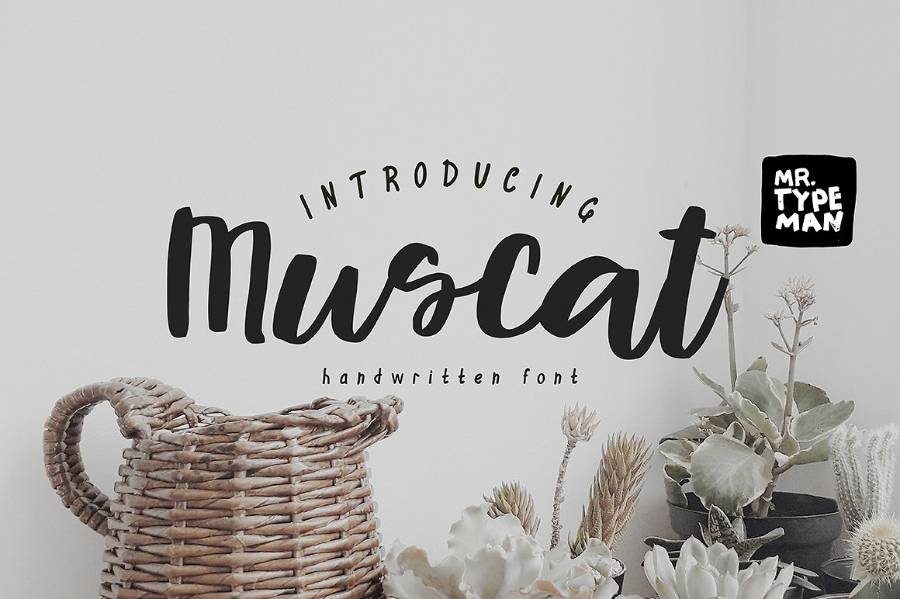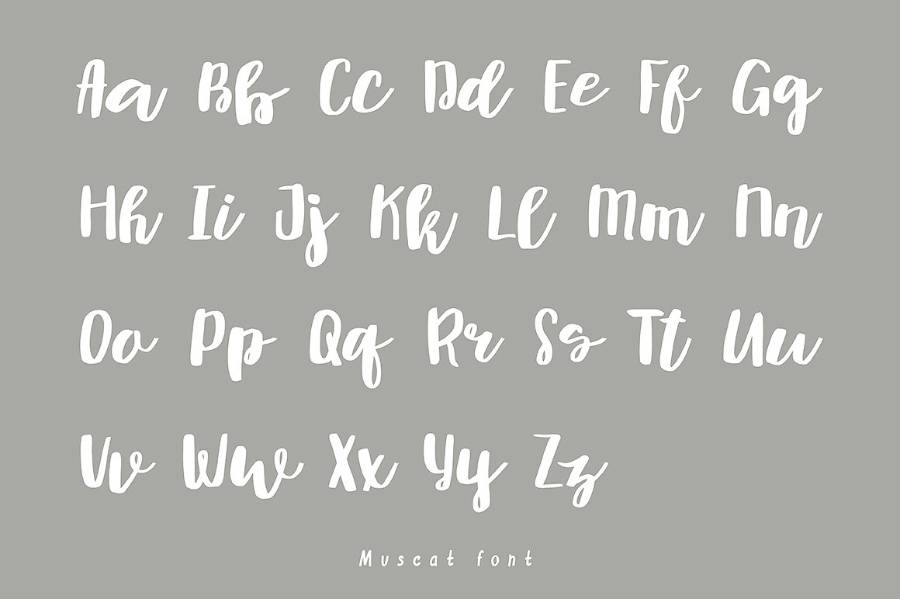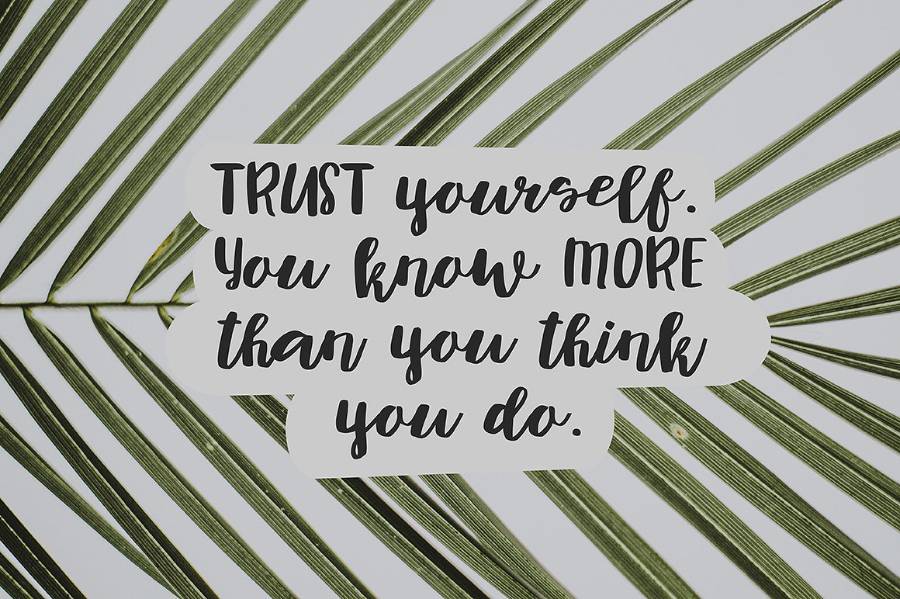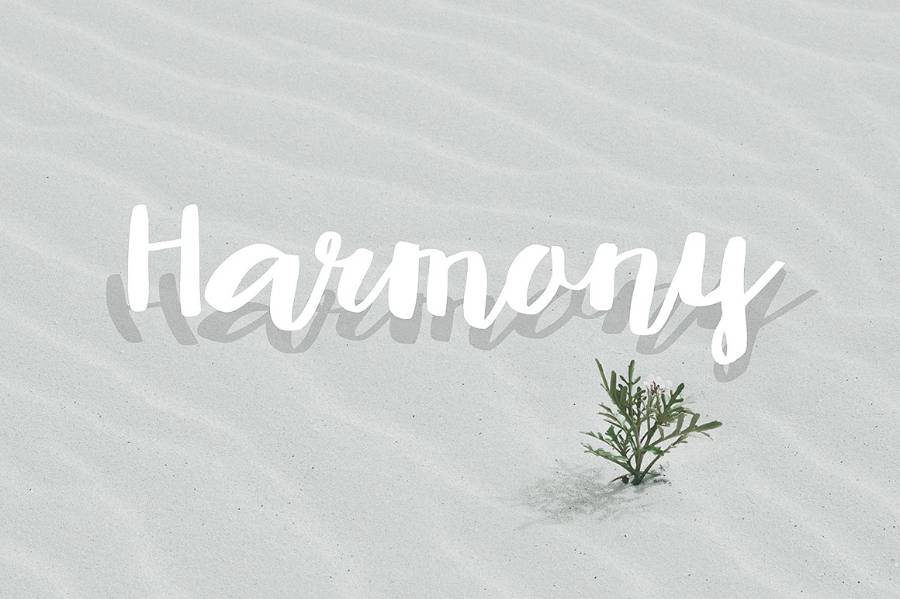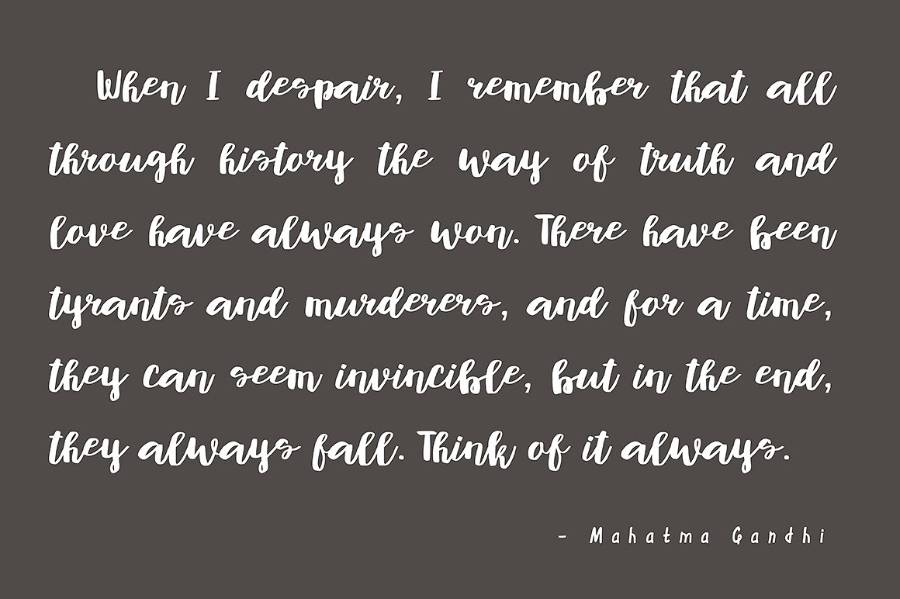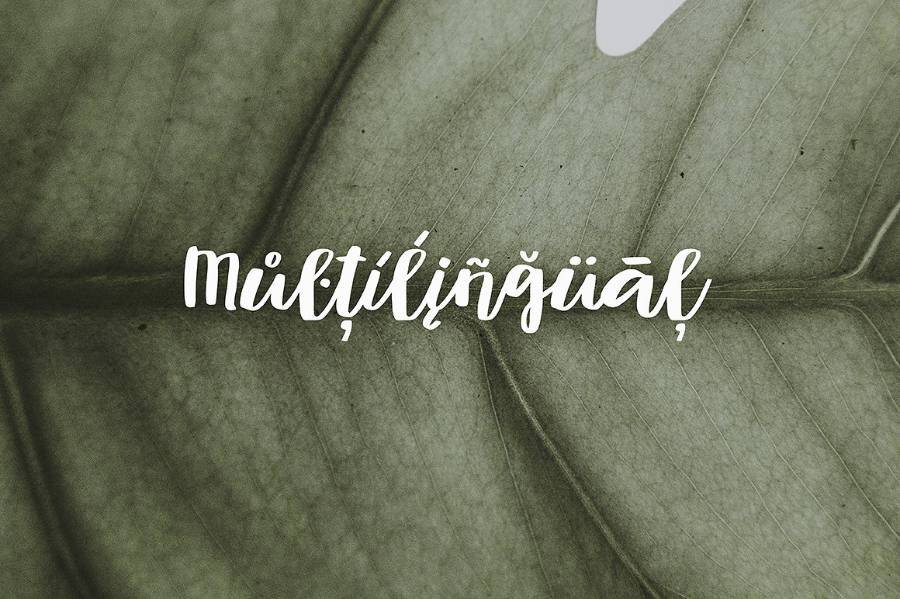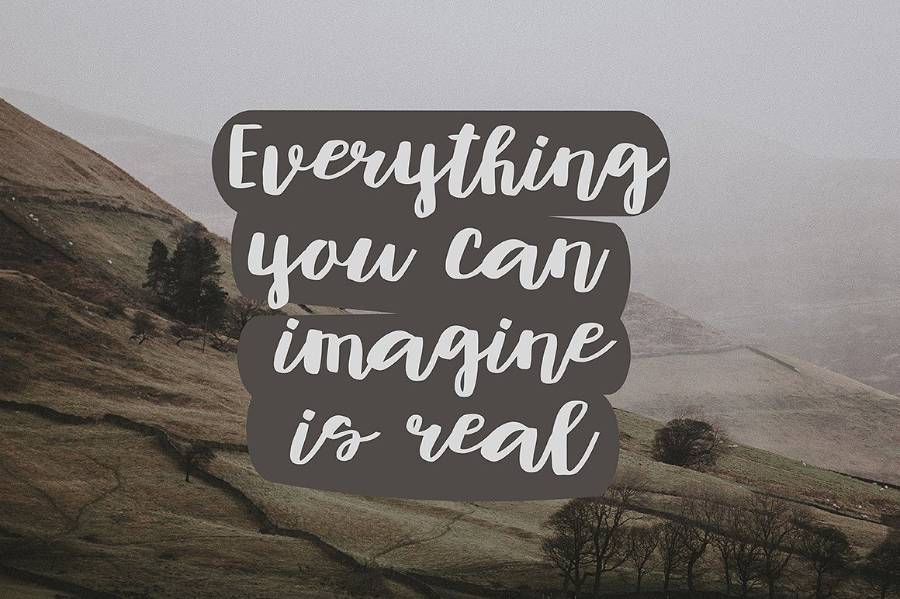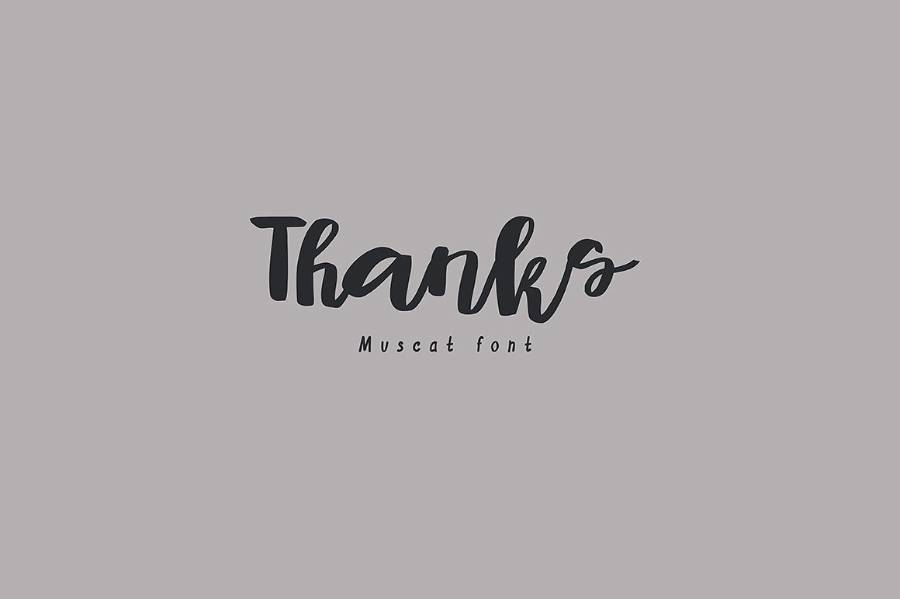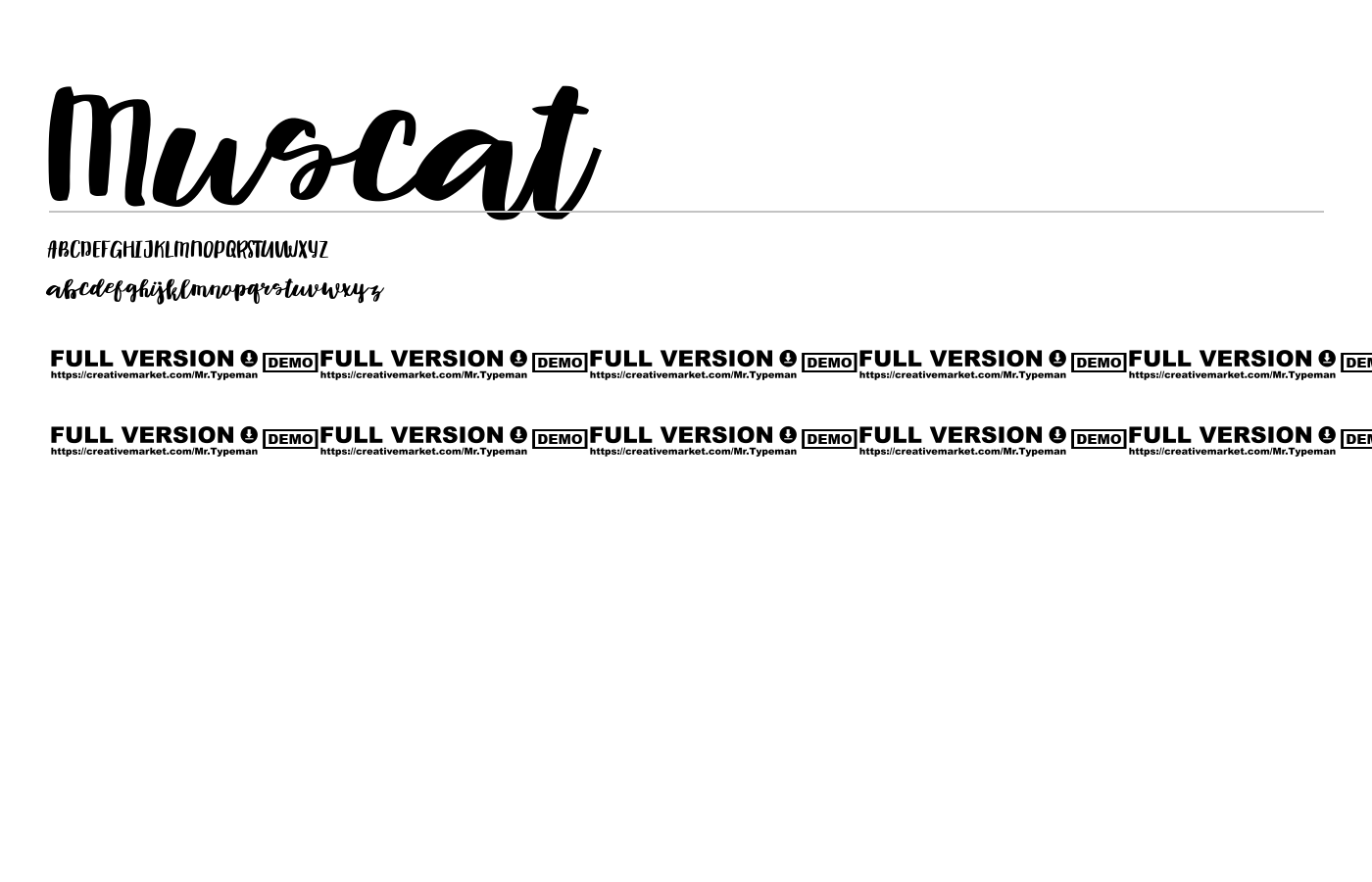
Muscat Handwriting Script Demo is a bold and lively script font with a casual, handwritten feel. Its thick strokes and playful, flowing letterforms make it perfect for adding a personal, friendly touch to branding, invitations, and creative projects. This font works well for logos and headlines where a warm, approachable style is desired.
Muscat Handwriting Script Demo
About Muscat Handwriting Script Demo
| Font family | Muscat Handwriting Script Demo |
| Designer | Hleb Zhyhunou |